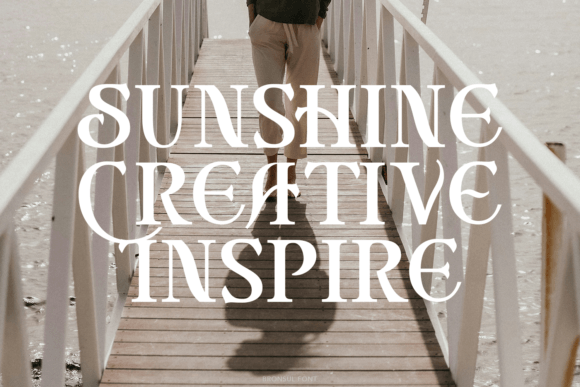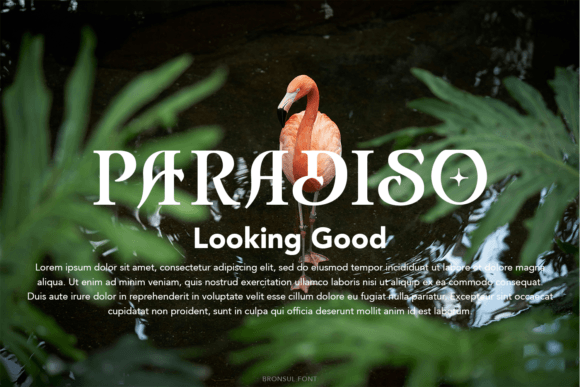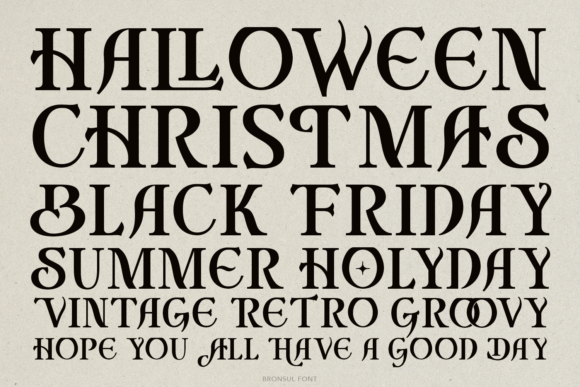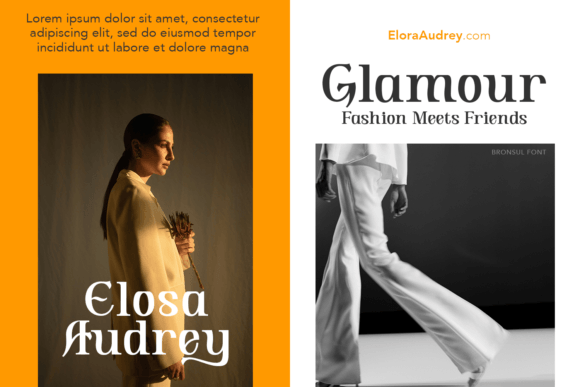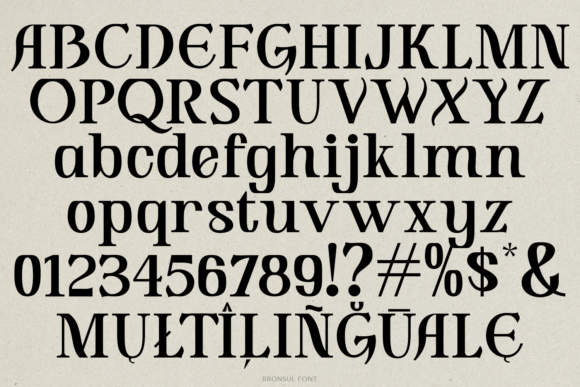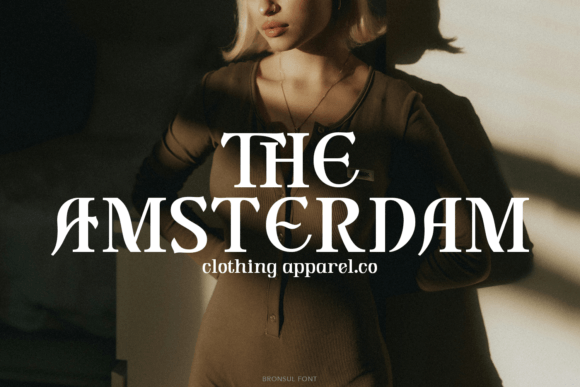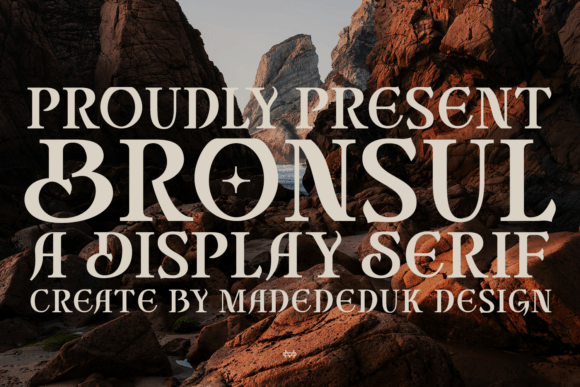
The Designer’s Delight: Exploring the Elegance of Bronsul Font
I’ll never forget the struggle I faced while working on a high-end fashion project. My client wanted a font that exuded luxury, sophistication, and a touch of retro charm. I scoured the internet, tried countless fonts, but nothing seemed to fit the bill. That’s when I stumbled upon Bronsul Font – a serif display font that instantly caught my attention with its unique, high-contrast design. In this article, I’ll share my experience with Bronsul, its features, and how to make the most of it in your designs.
An Honest Review of Bronsul Font
What I Love About Bronsul ✨
- ✅ Unique retro look with high contrast serifs, perfect for high-end fashion and cultural environments
- ✅ Simple yet distinctive design, making it easy to read and recognize
- ✅ Versatile and can be used for various design projects, from branding to product packaging
- ✅ Supports OpenType features, allowing for creative experimentation
- ⚠️ Limited availability of stylistic alternates, which might restrict design variations
- ⚠️ May not be suitable for body text due to its display font nature and high contrast
The Backstory of Bronsul Font
Bronsul Font was designed with the intention of capturing the essence of luxury and sophistication. Its creator drew inspiration from classic serif fonts, adding a modern twist with high contrast and unique design elements. The result is a font that exudes elegance and refinement, perfect for high-end fashion and cultural environments.
Q: What type of projects is Bronsul Font best suited for?
A: Bronsul Font is ideal for high-end fashion, cultural, and luxury brand projects, including branding, product packaging, headlines, invitations, and more.
Q: Can I use Bronsul Font for body text?
A: While Bronsul is a beautiful font, it’s primarily designed as a display font. Its high contrast and unique design elements may not be suitable for extended body text.
Q: Does Bronsul Font support OpenType features?
A: Yes, Bronsul Font supports OpenType features, allowing you to experiment with ligatures, stylistic alternates, and other creative elements.